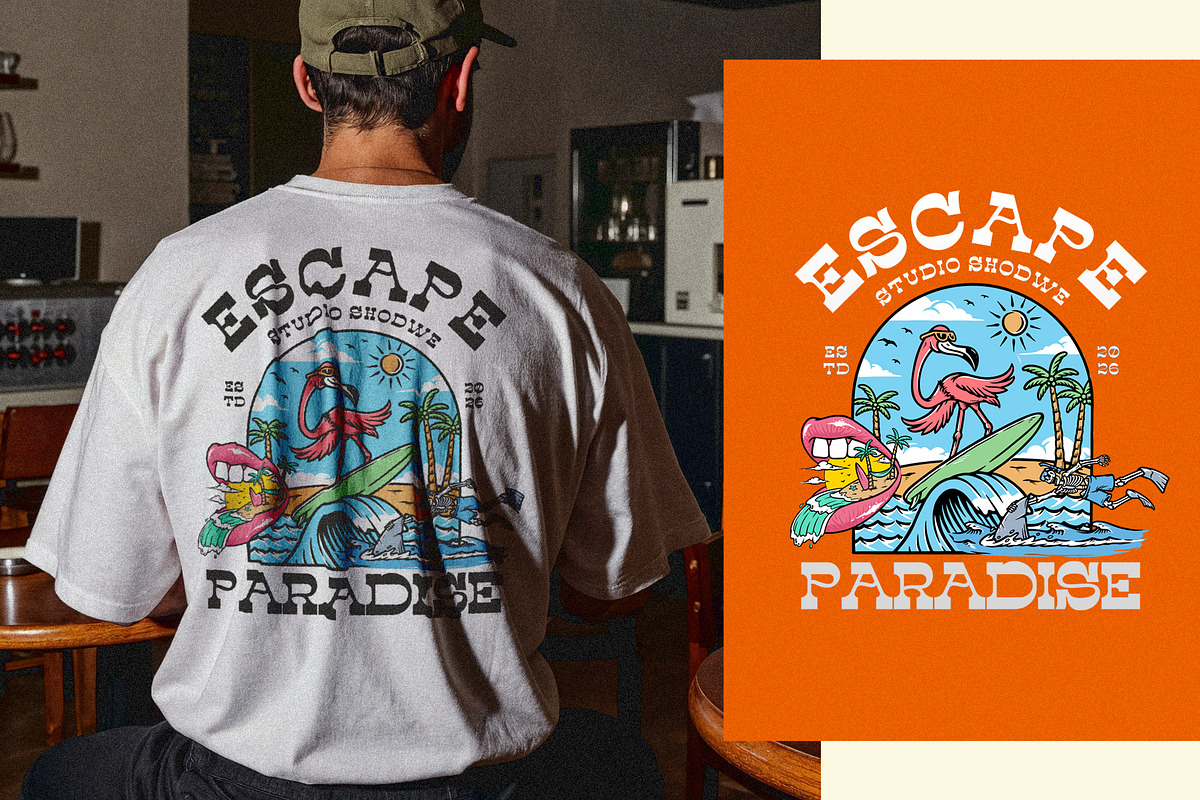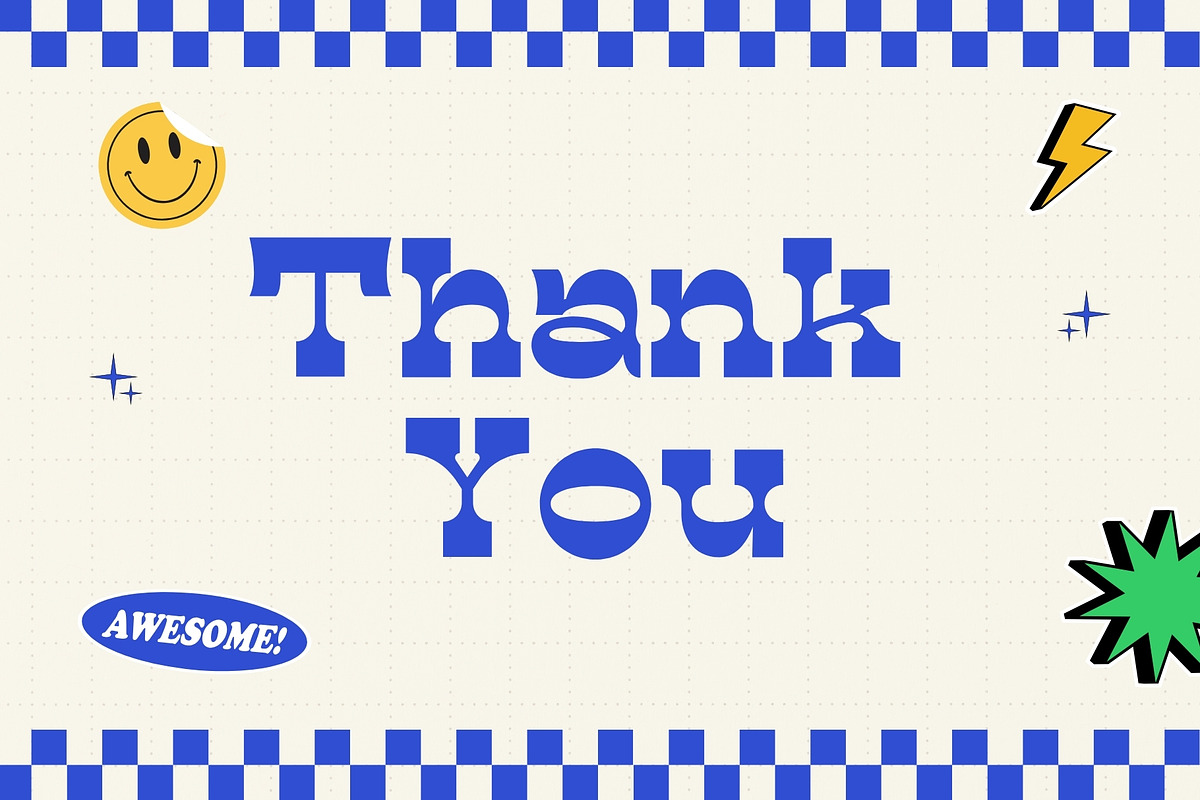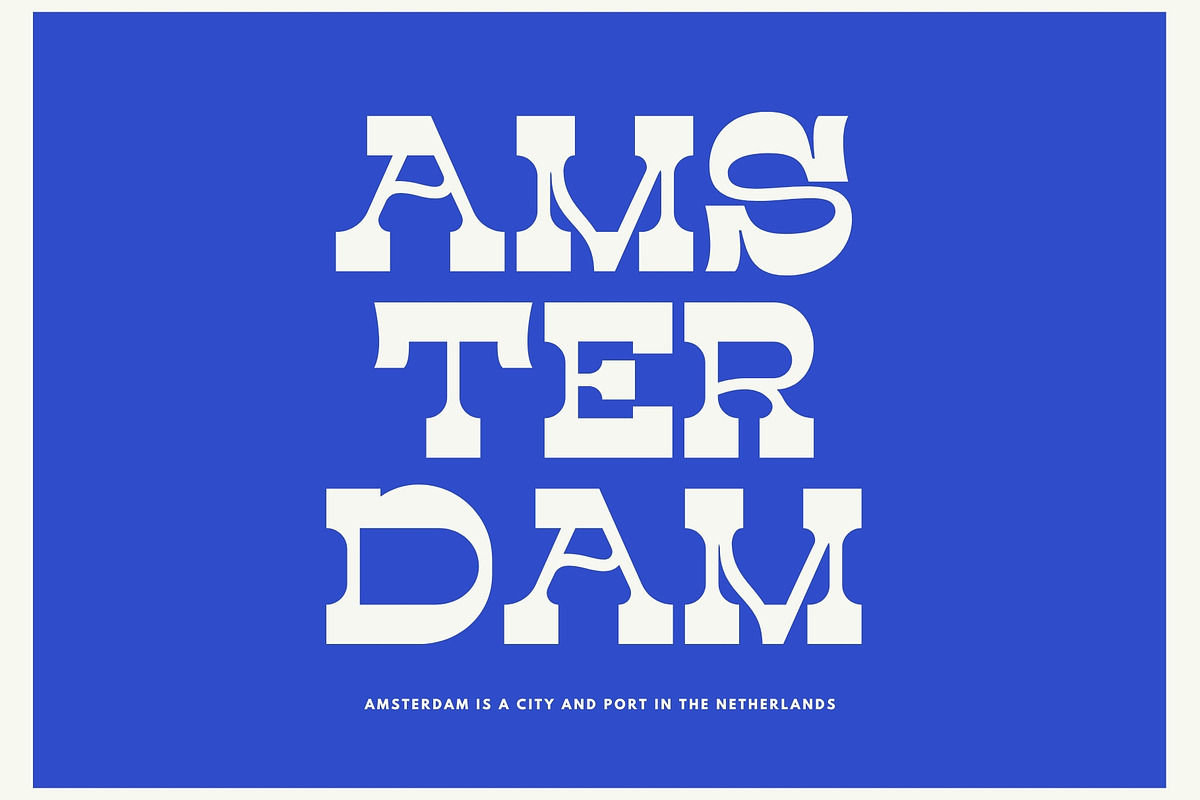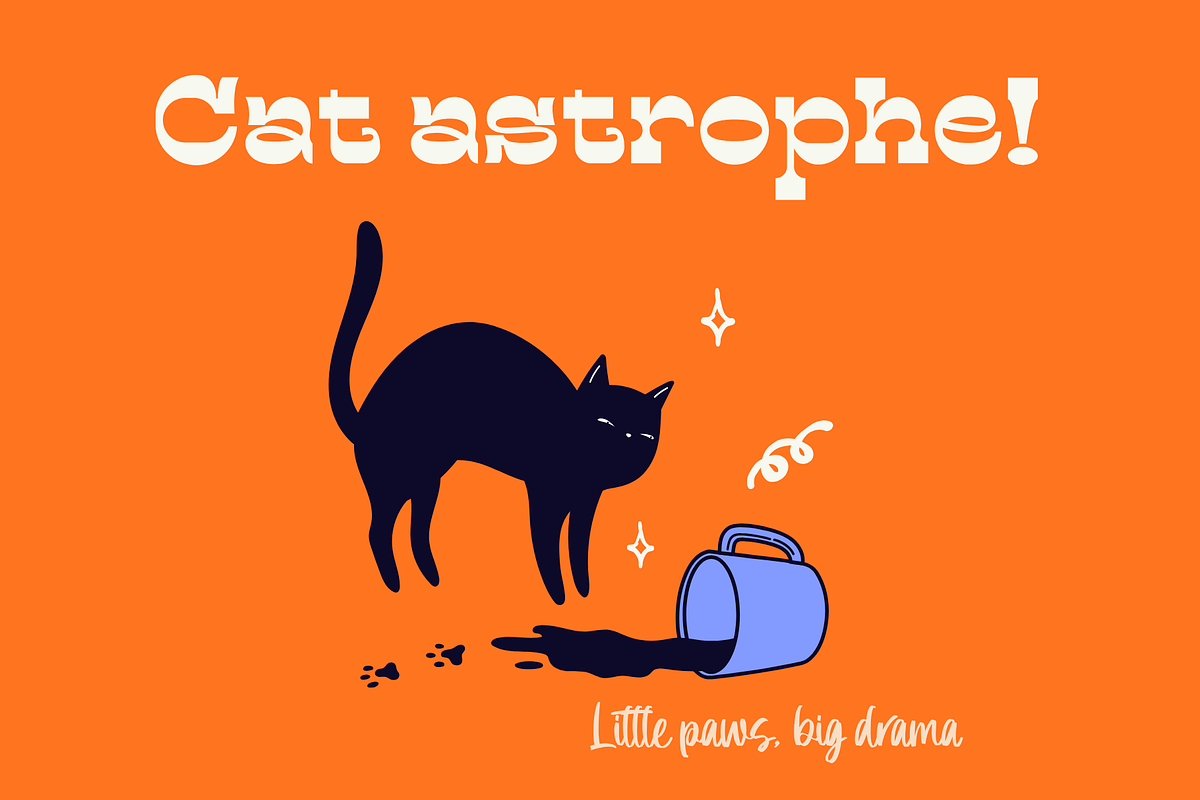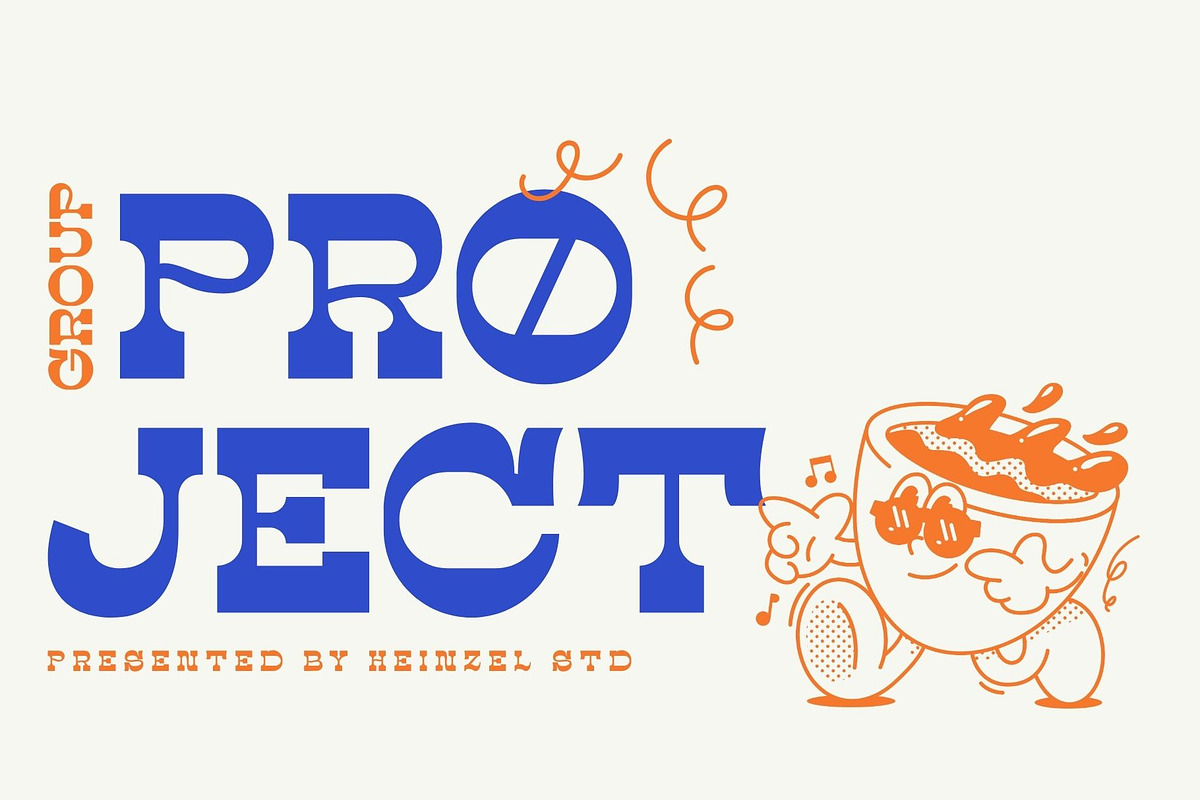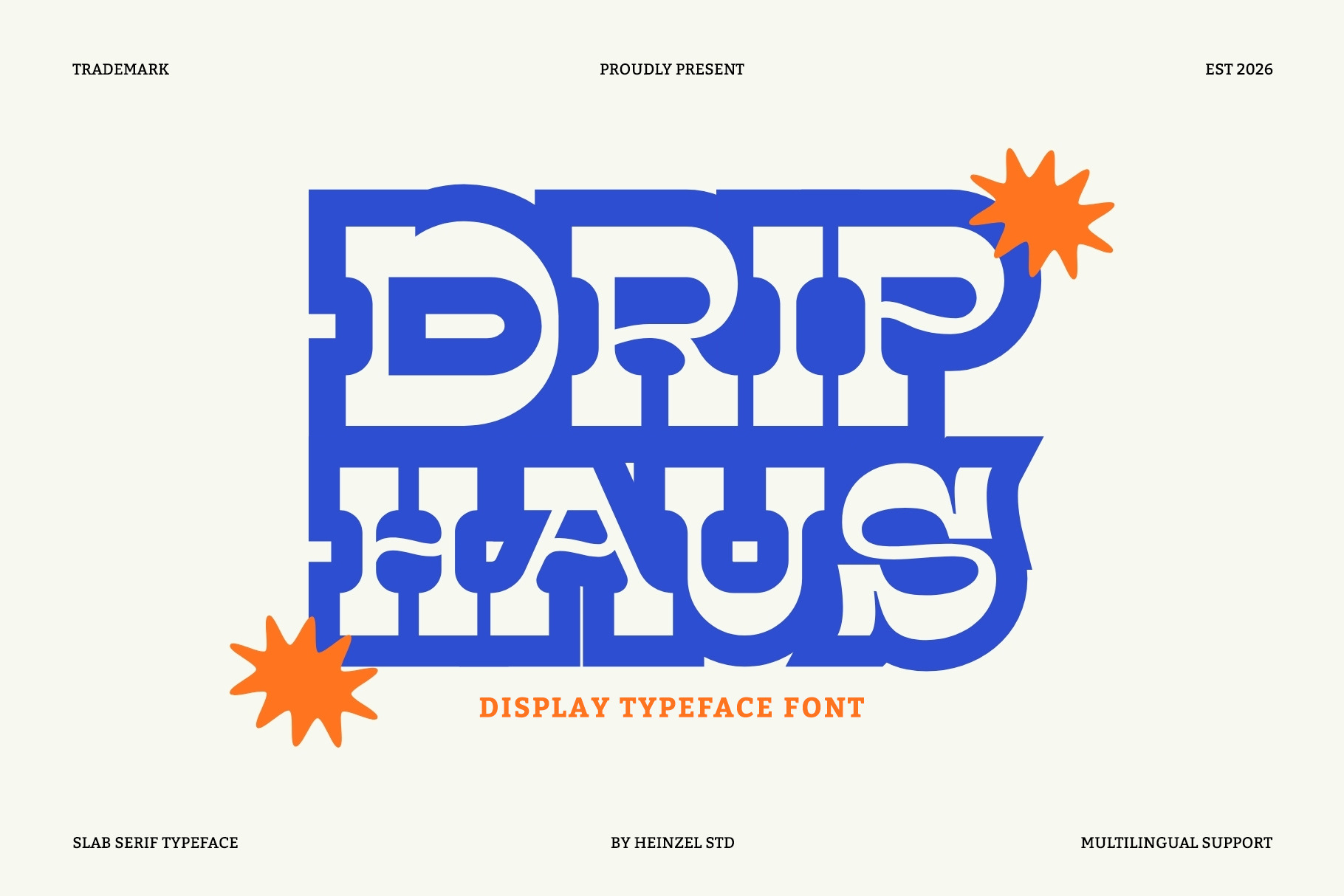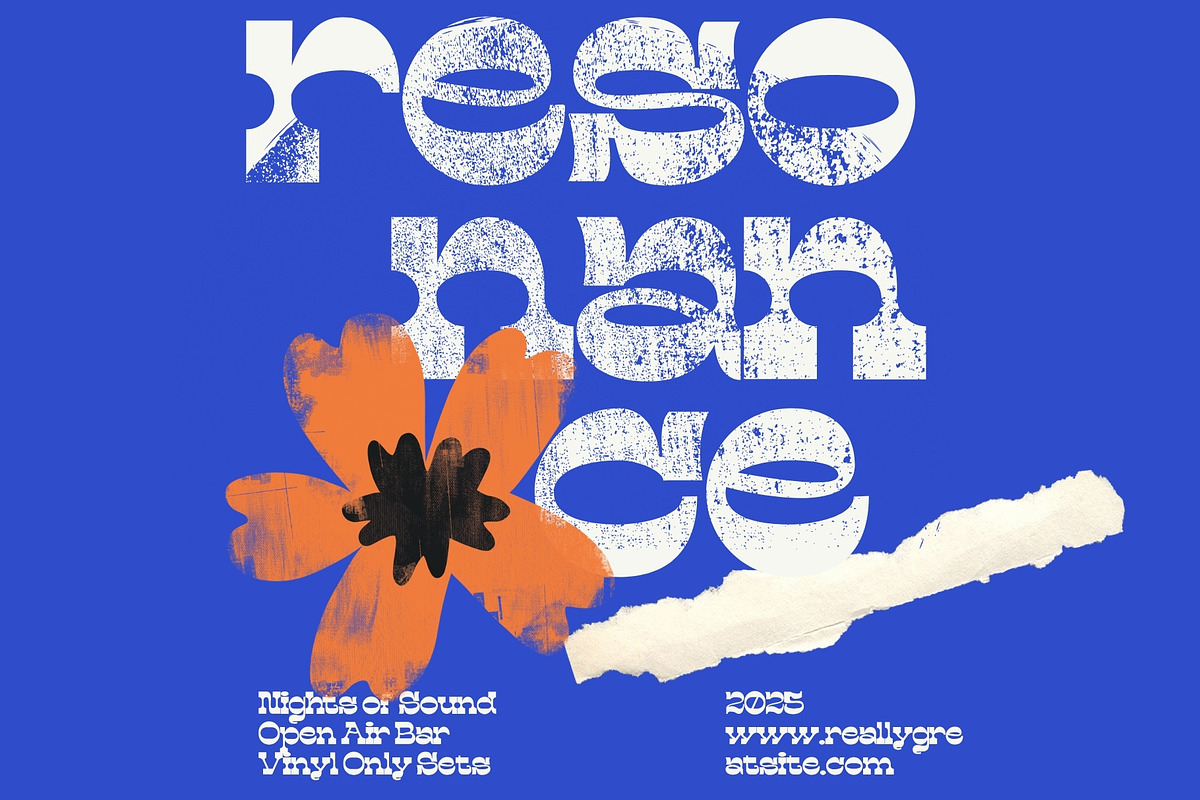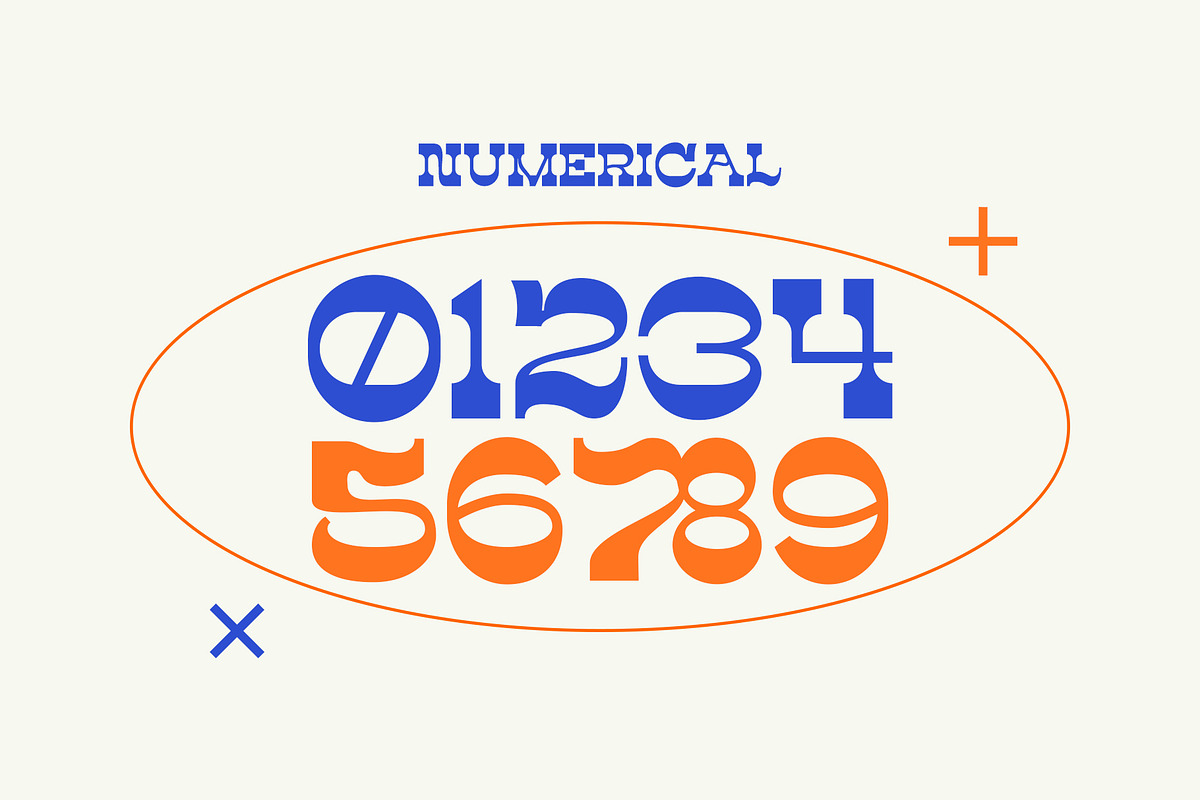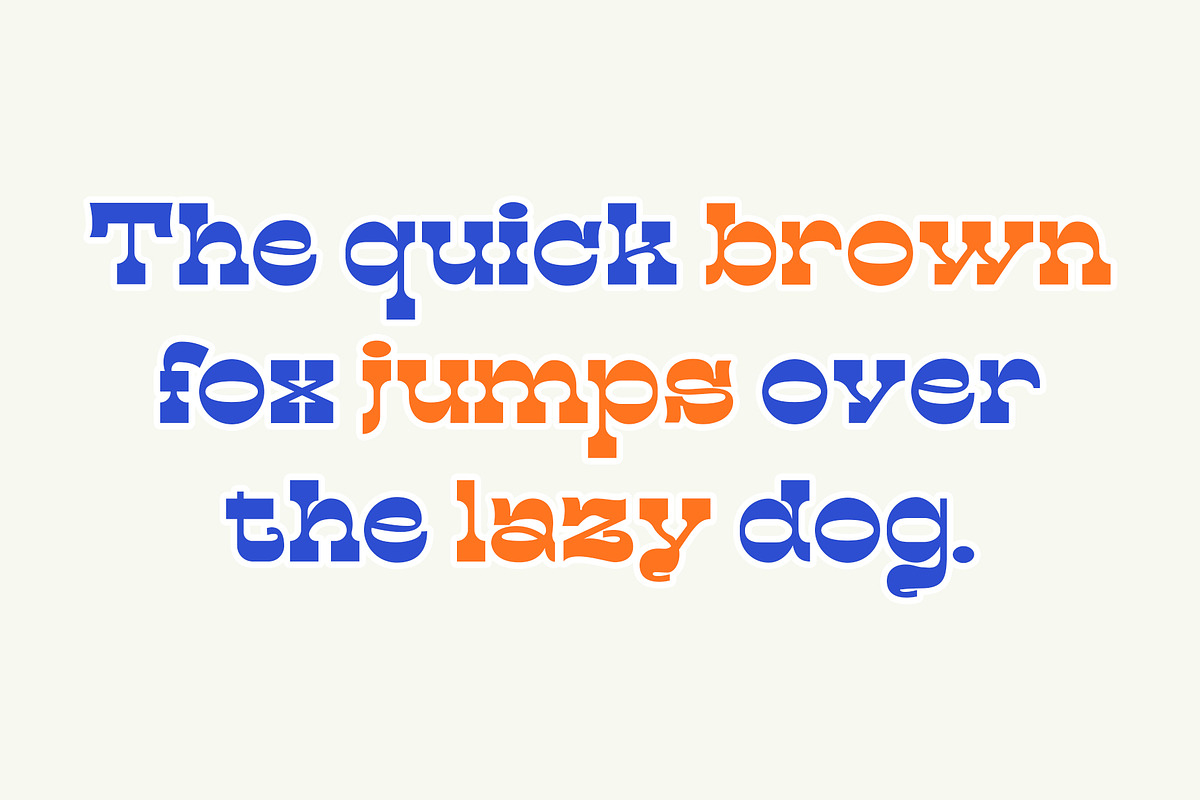
Drip Haus Slab Serif Font
Drip Haus is a bold and expressive slab serif display font designed to make a powerful visual statement. Featuring thick block serifs, unique retro-inspired letterforms, and a modern artistic twist, this typeface combines vintage charm with contemporary creativity. Its strong structure and eye-catching details make it perfect for branding, logos, posters, packaging, apparel, social media graphics, editorial headlines, and merchandise design.
Created for designers who want typography that stands out, Drip Haus delivers confidence, character, and versatility in every letter. The distinctive slab serif construction gives it a sturdy and memorable appearance, making it ideal for projects that demand attention and a strong brand identity. Slab serif fonts are known for their bold, block-like serifs and high visual impact, making them especially effective for display typography and branding applications.
Whether you're creating retro-inspired branding, modern streetwear designs, creative advertising campaigns, or impactful packaging, Drip Haus brings a unique blend of boldness and style that elevates any project.